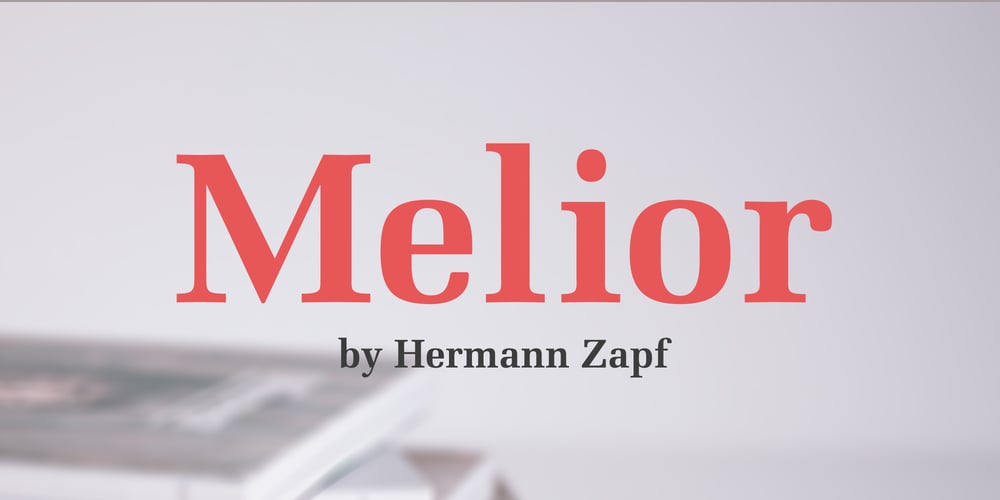
Melior
Melior font
Melior Font Family was designed by Hermann Zapf and published by Linotype. Melior contains 4 styles and family package options. Hermann Zapf’s Melior exhibits a robust character through classic and objective forms. Versatile and extremely legible, it can be used for a variety of texts and point sizes.